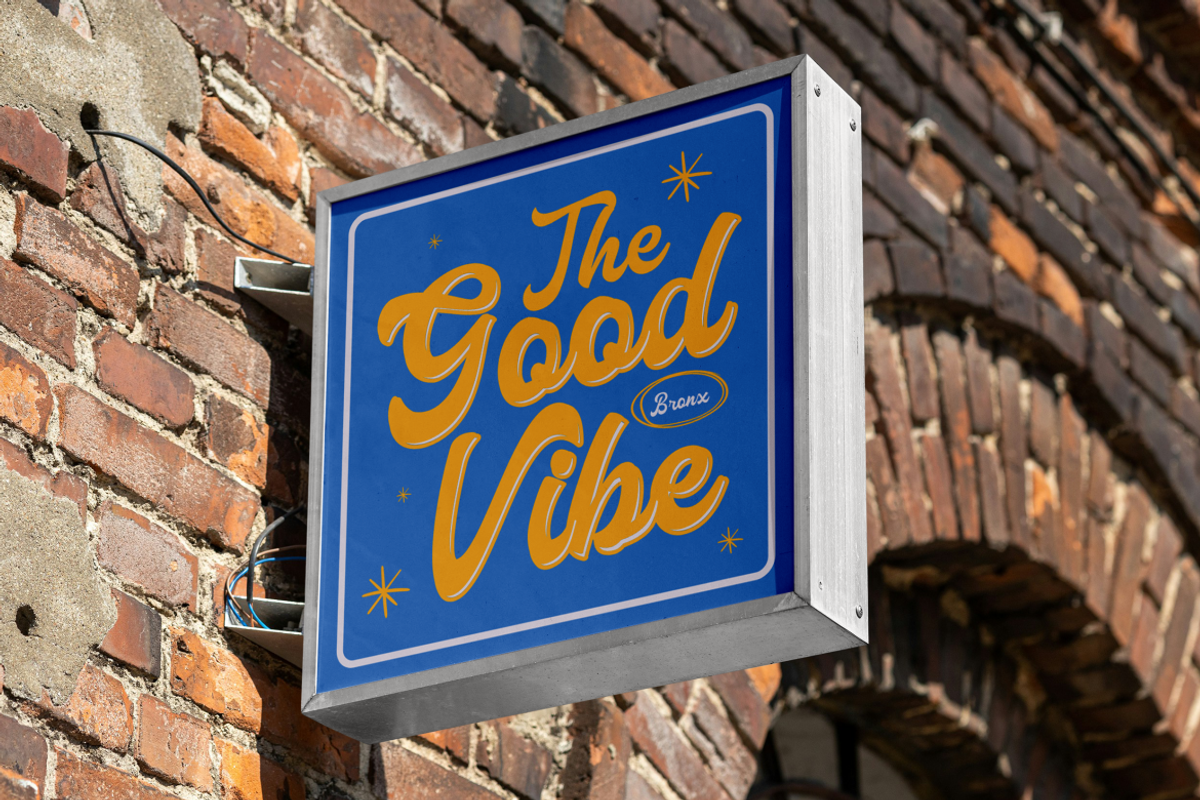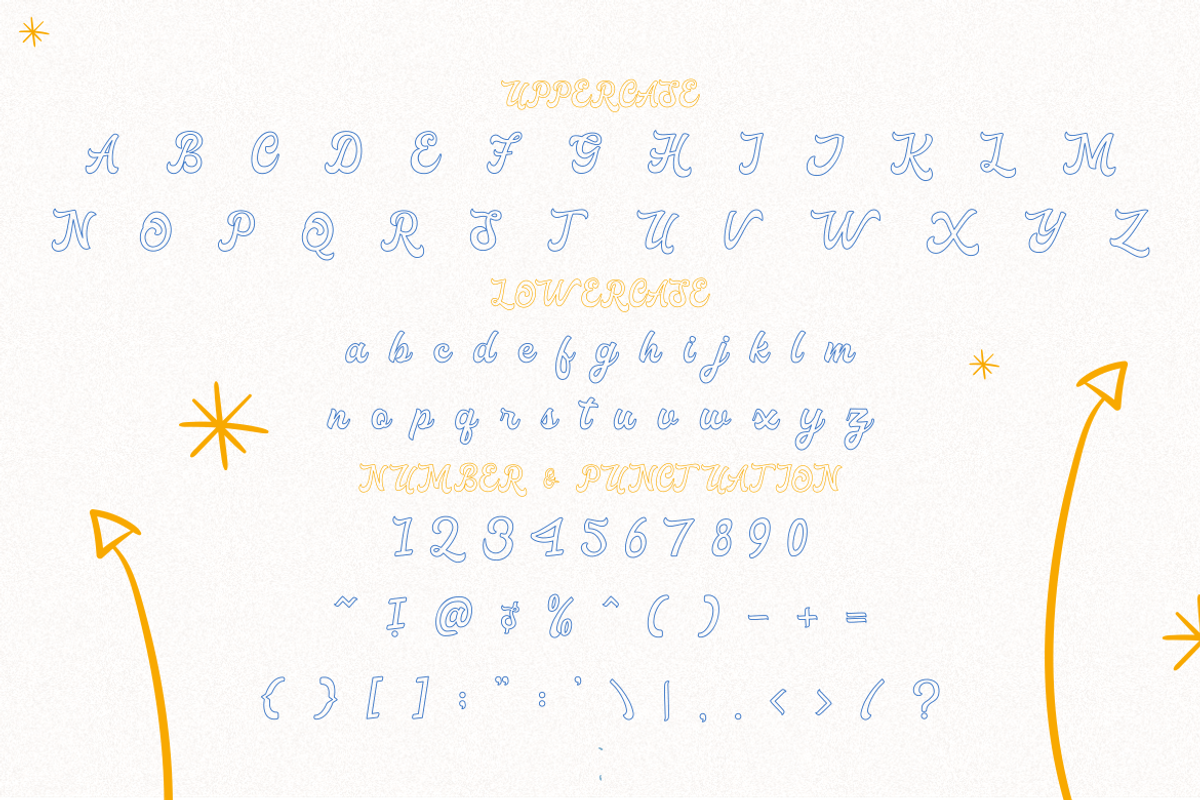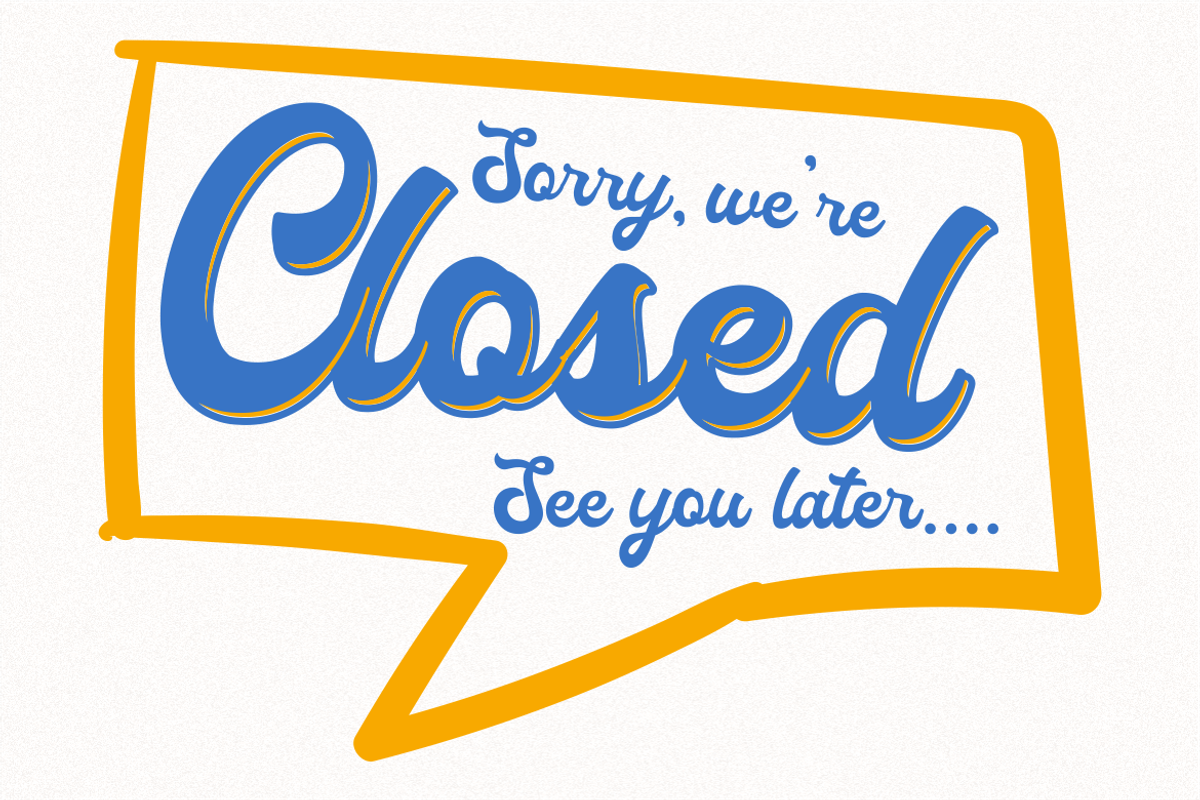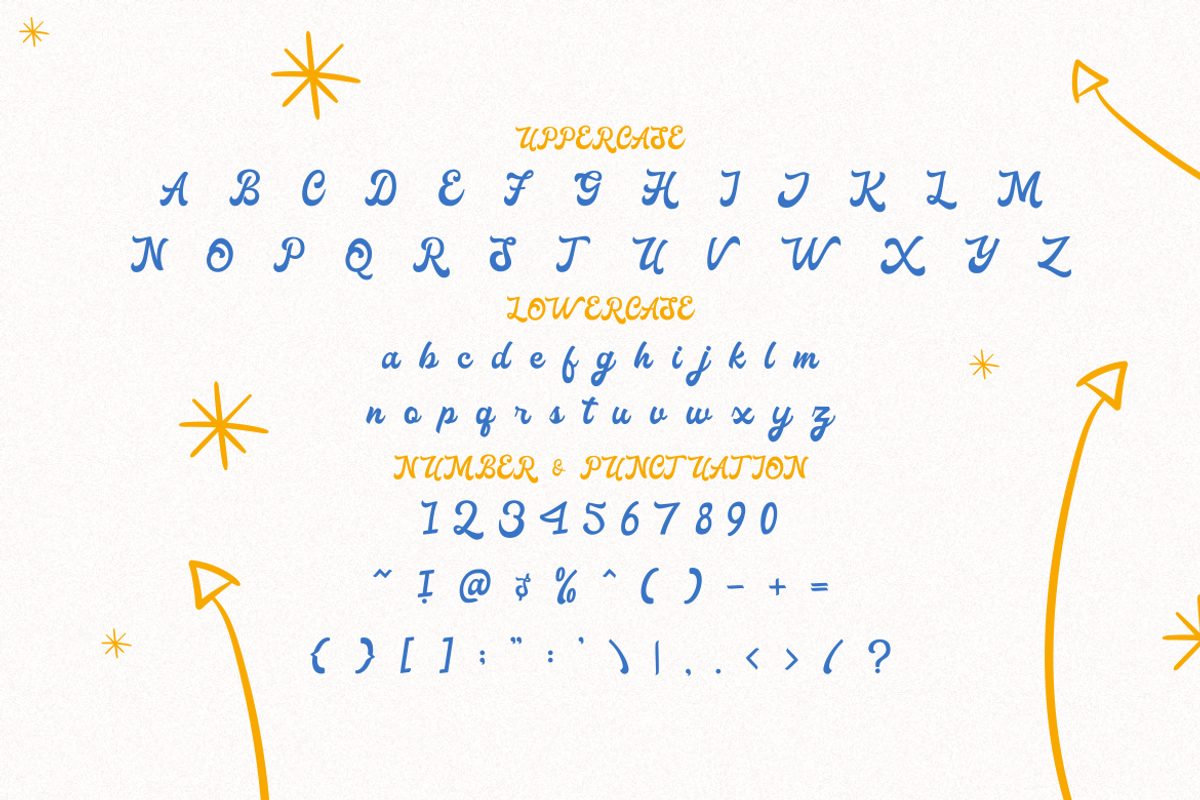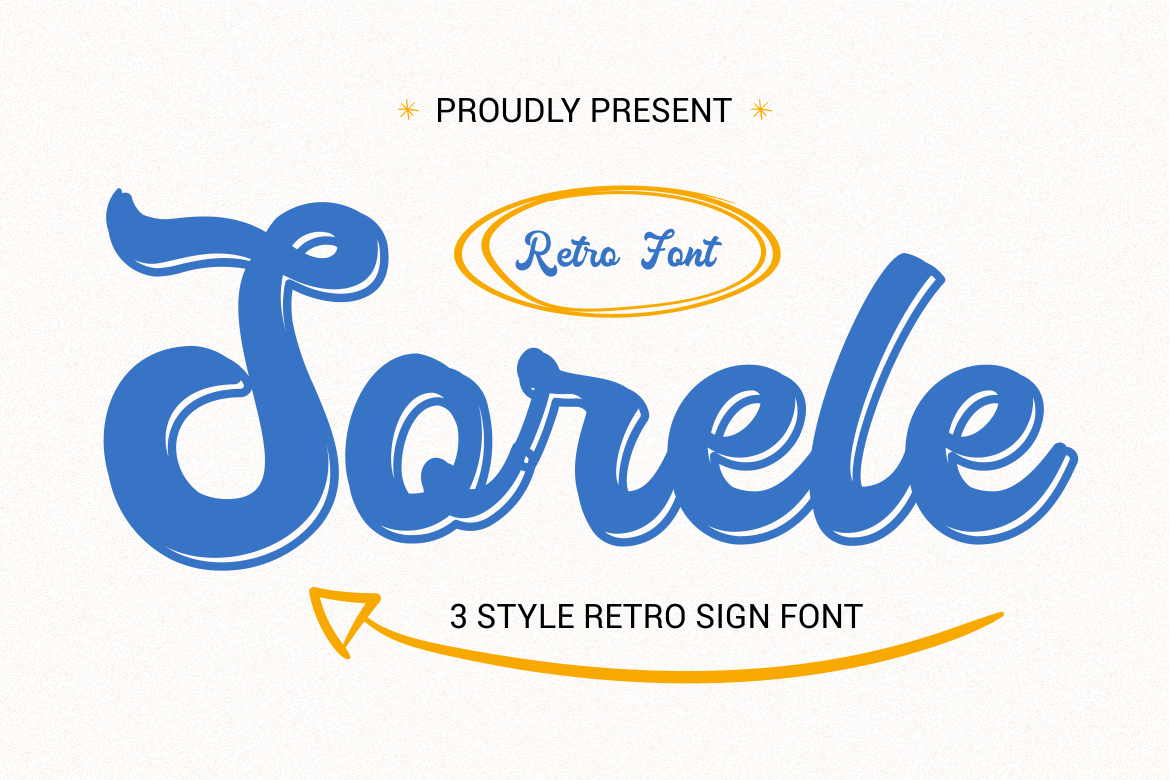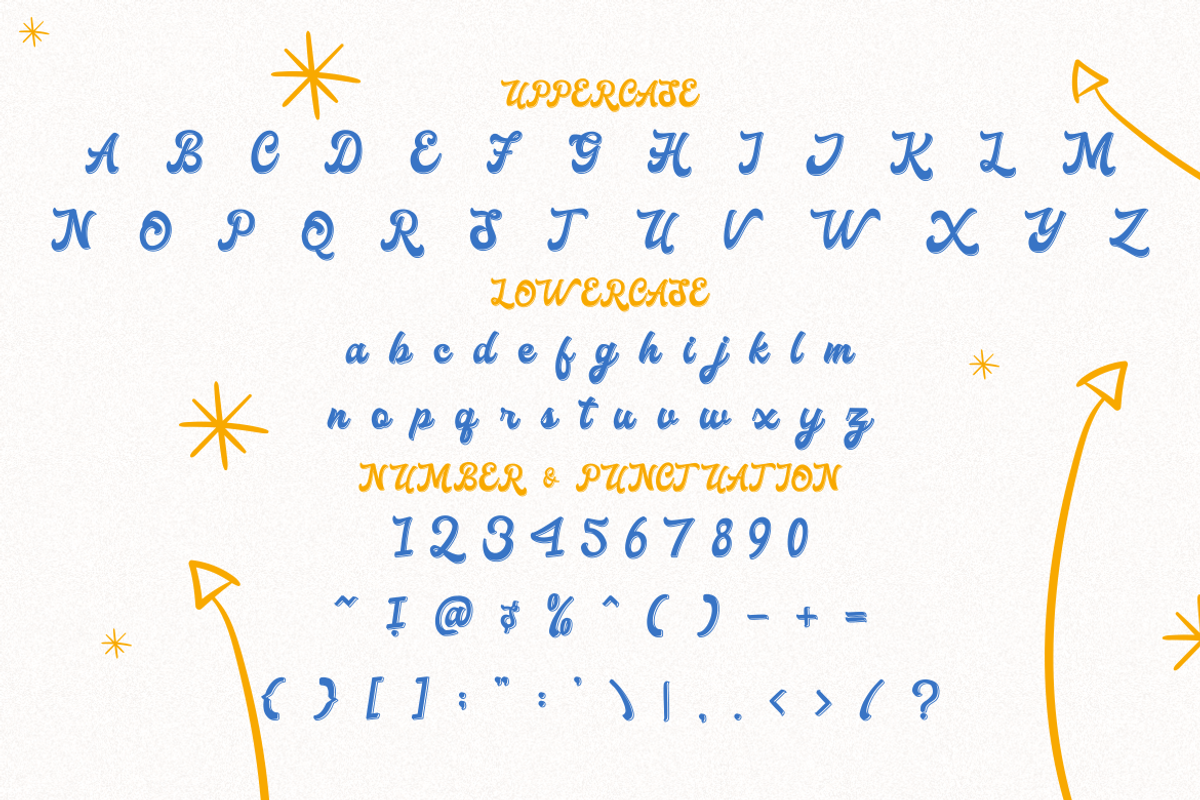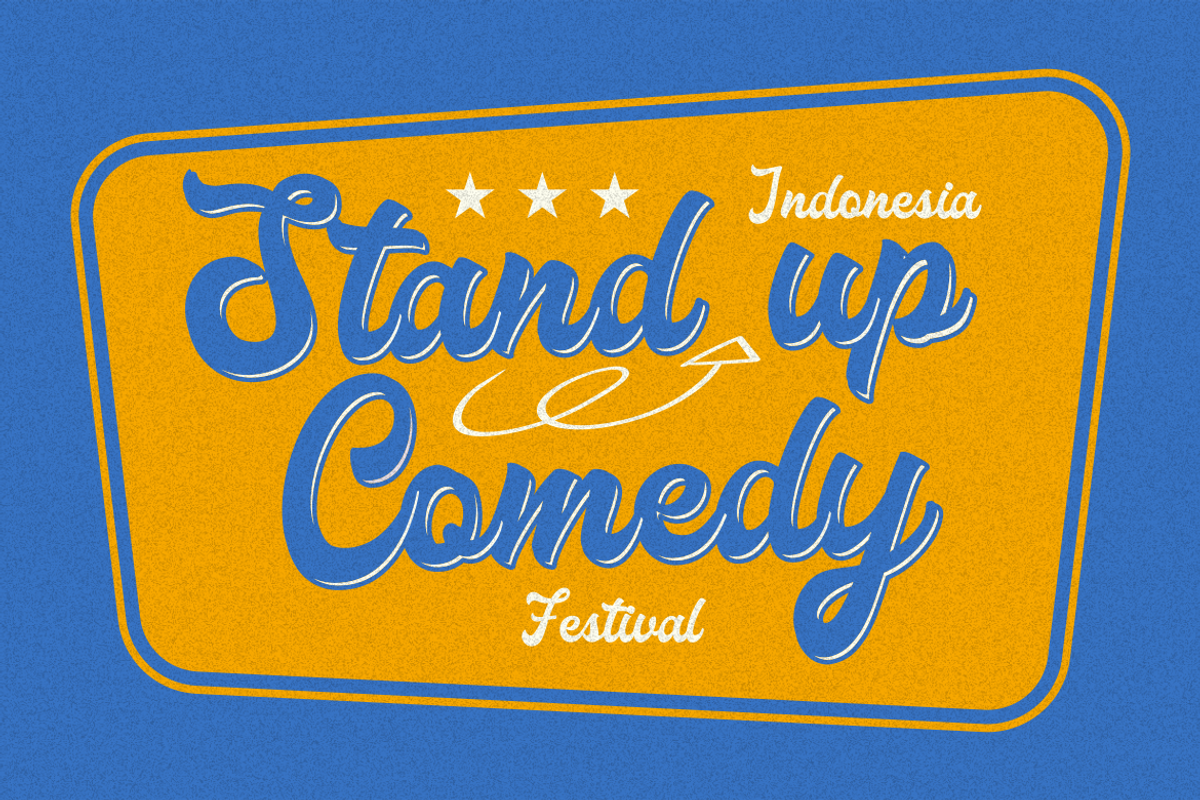
Sorele Retro Font
Sorele Retro Font is a bold script typeface inspired by classic signage and mid-century lettering traditions. The letterforms feature rounded strokes, confident curves, and consistent weight that create a solid visual presence. Each character feels full and expressive, with smooth connections and slightly exaggerated terminals that enhance readability at large sizes. The proportions are well balanced, combining thick main strokes with gentle transitions that keep the rhythm natural. This structure gives the font a strong personality while remaining clean and controlled. Sorele Retro Font delivers a timeless script look that feels nostalgic without appearing outdated. It carries a handcrafted spirit that adds warmth and charm to any design project.
The style of Sorele Retro Font blends vintage, retro, and classic script influences with a bold display approach. It works especially well for logo design, branding systems, posters, headlines, and packaging that require strong visual impact. The font also fits advertising layouts, product labels, invitations, book covers, magazine titles, stickers, and film titles that aim for a friendly yet confident tone. Its flowing script style supports expressive wording, while the bold construction keeps text legible across print and digital media. Sorele Retro Font helps brands communicate personality, authenticity, and character through typography. Designers can rely on it for projects that need a nostalgic feel paired with modern clarity. Sorele Retro Font stands as a versatile choice for creative work rooted in retro aesthetics and bold storytelling.